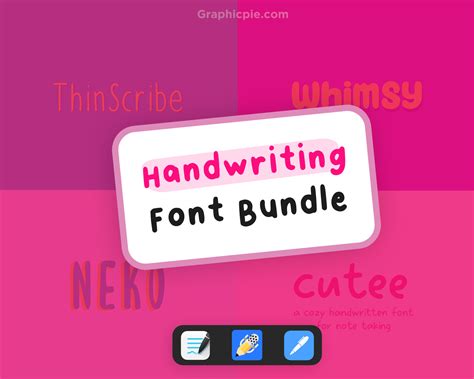
What You Need To Know About Notability Fonts In 2023
What is a Notability Font?
Notability fonts are typographical designs specifically created for use in digital media. They are used to add emphasis, clarity, and distinctiveness to written messages. Notability fonts are designed to be bold and eye-catching, allowing your message to stand out from the crowd. They also come in a variety of shapes and sizes, giving you the freedom to pick the right font for your project. Notability fonts can be used in a variety of digital media, including webpages, emails, logos, and more.
The Benefits of Notability Fonts
Notability fonts offer a number of advantages over traditional fonts. For example, they are specifically designed for use in digital media, so they are optimized for legibility and clarity on screens. They also tend to be more eye-catching than traditional fonts, as they are often bolder and more distinct. Additionally, notability fonts come in a variety of shapes and sizes, allowing you to pick the right font for your project. Finally, notability fonts are often free or relatively inexpensive, making them an economical choice for budget-conscious projects.
Tips for Choosing the Right Notability Font
Choosing the right notability font can be a challenge, as there are so many options available. To make the process easier, it’s important to consider the purpose of the font. For example, if you’re creating a logo, you should pick a bold, eye-catching font that will stand out. On the other hand, if you’re creating an email, you should pick a font that is easy to read and won’t strain your recipient’s eyes. Additionally, it’s important to consider the tone of the project. For example, a formal project may require a more traditional font, while a fun project may require a more playful font.
Using Notability Fonts in Your Projects
Once you’ve chosen the right font for your project, it’s time to incorporate it into your design. The best way to do this is to choose a font that is easy to read and will look good on any device or platform. Additionally, it’s important to make sure that the font you choose is compatible with the software you’re using. Finally, you should make sure the font is properly sized and positioned so that it looks good and is easy to read.
Notability fonts are a great way to add emphasis, clarity, and distinctiveness to your projects. They come in a variety of shapes and sizes, allowing you to pick the right font for your project. Additionally, notability fonts are often free or relatively inexpensive, making them an economical choice for budget-conscious projects. Finally, it’s important to consider the purpose of the project when choosing a notability font and make sure it is easy to read and compatible with the software you’re using.